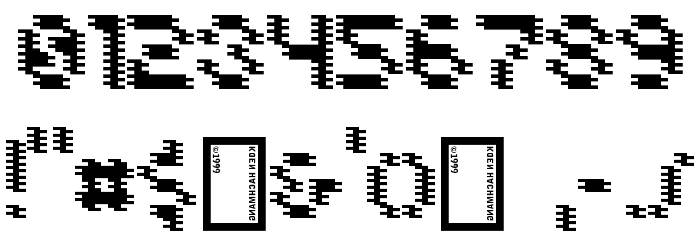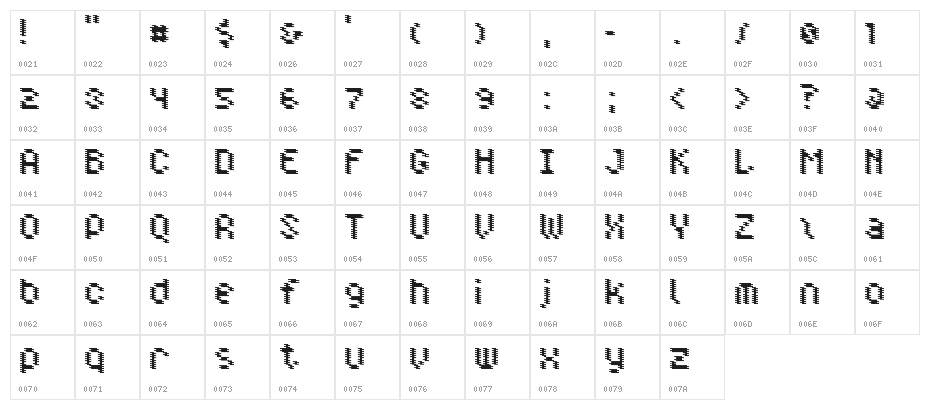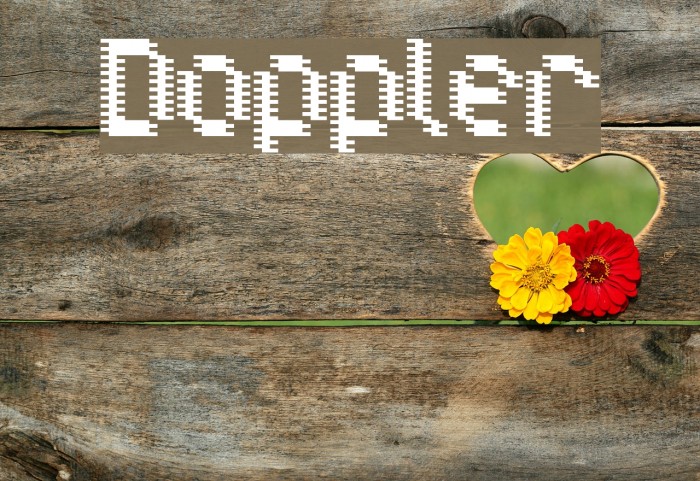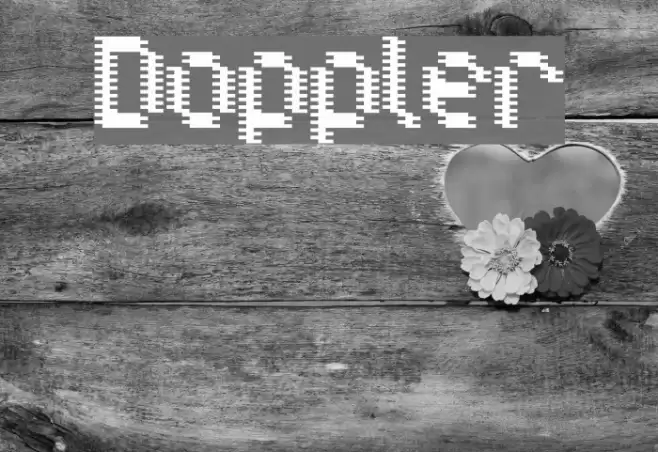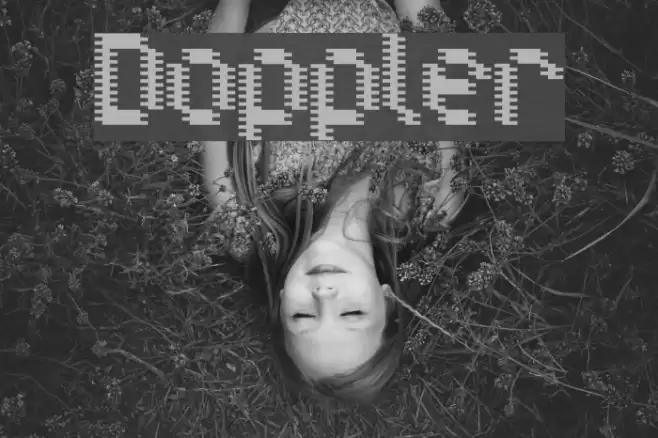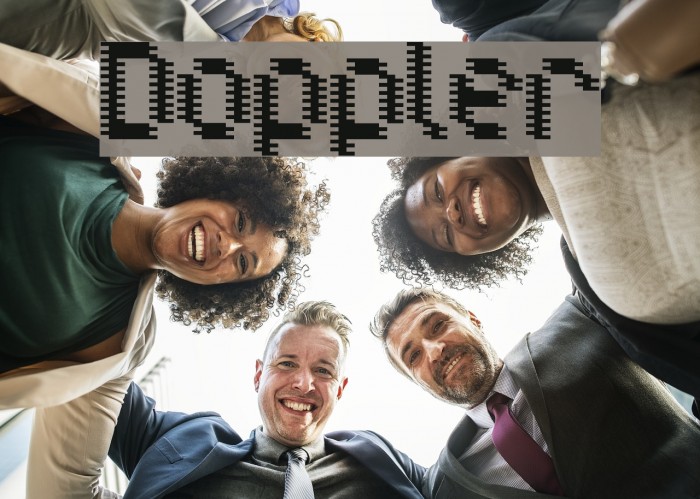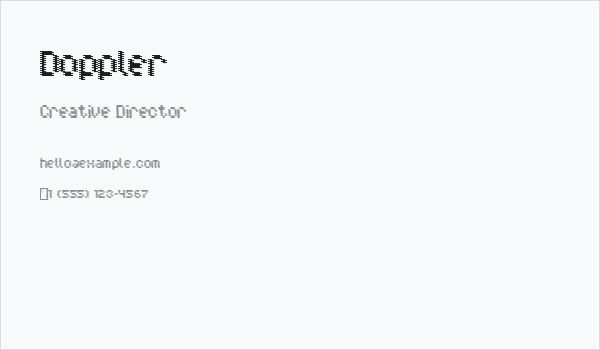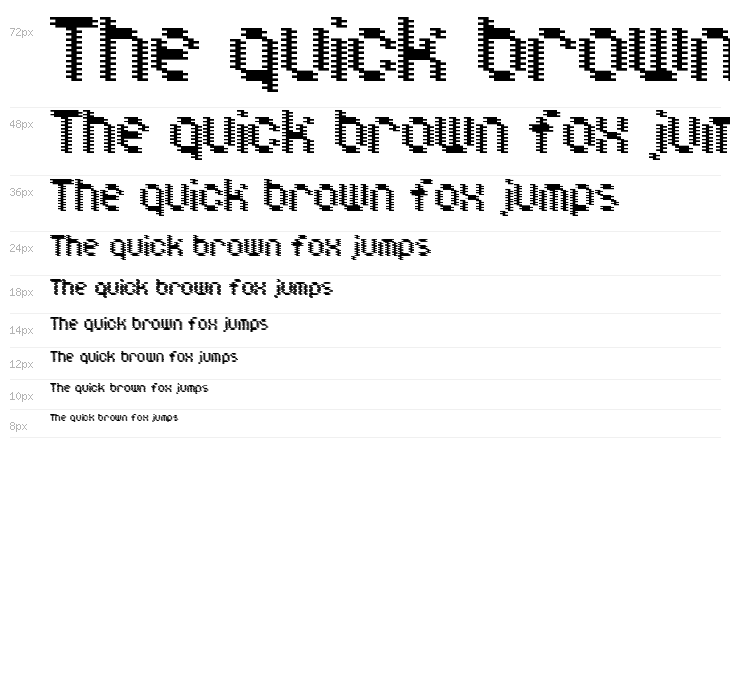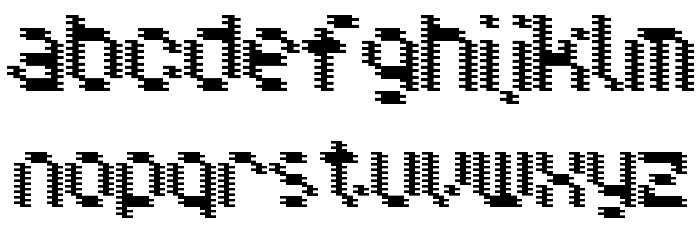
Doppler Font
Doppler Description
This font features a unique pixelated design, reminiscent of early digital displays or retro video games. Each character is constructed with a series of horizontal lines, creating a distinct, blocky appearance. The uppercase and lowercase letters maintain a consistent style, with the lowercase being slightly more compact. Numbers and special characters follow the same pixelated pattern, ensuring uniformity across all glyphs. The font's design is bold and eye-catching, making it suitable for projects that require a vintage or tech-inspired aesthetic.
| Proposed Projects | Ideal for video game graphics, retro-themed posters, digital art projects, and tech-related branding. |